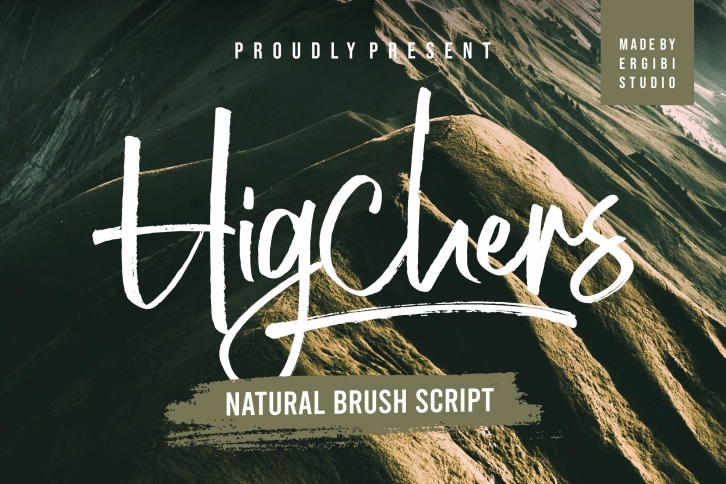
Introducing Higchers is a natural brush effect that comes with a style that seems real. This font style inspired by luxury goods and branded makes in many ways for your latest project. Higchers is perfect for logos & branding, photography, invitations, watermarks, advertisements, product designs, stationery, wedding designs, labels, product packaging, special events or anything that requires handwritten content.
Higchers Also available for some lowercase characters that have swash, as well as multilingual. This can be accessed easily via opentype in Photoshop / Illustrator.